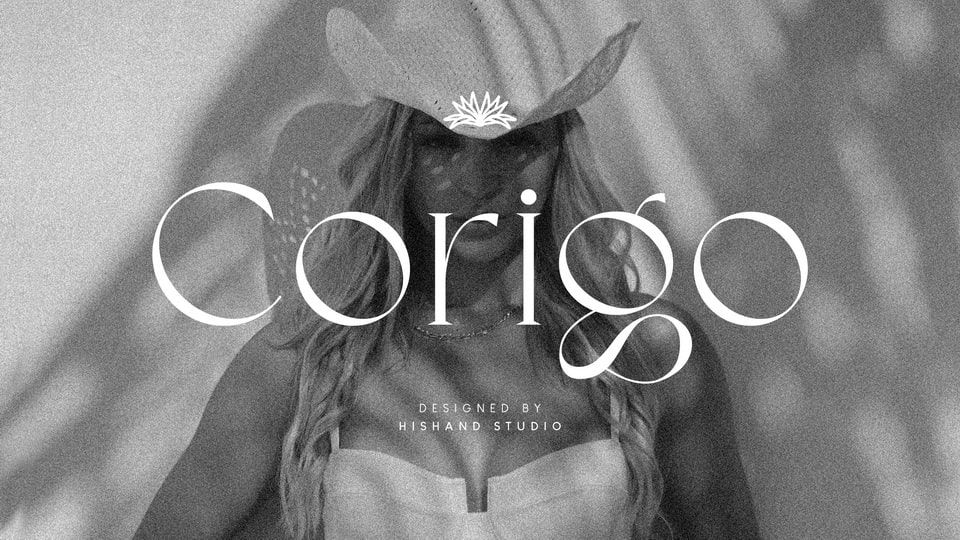
Download Corigo font, an elegant serif typeface crafted to bring sophistication and style to your designs. With its balanced proportions, refined strokes, and timeless charm.